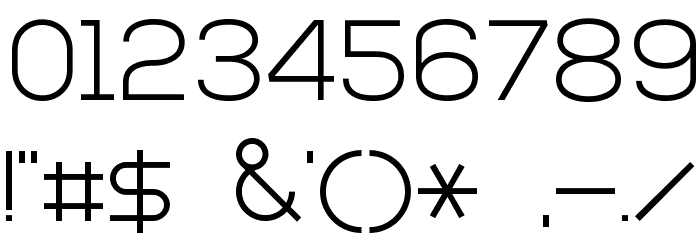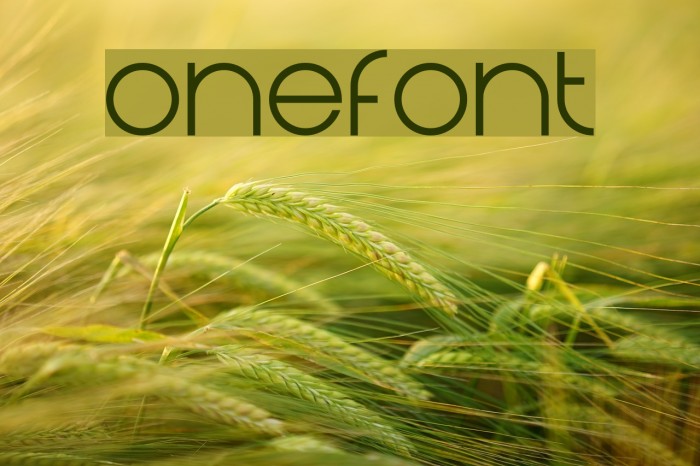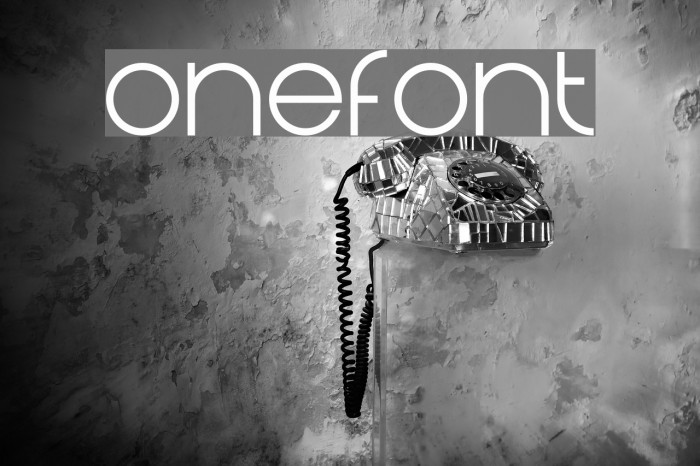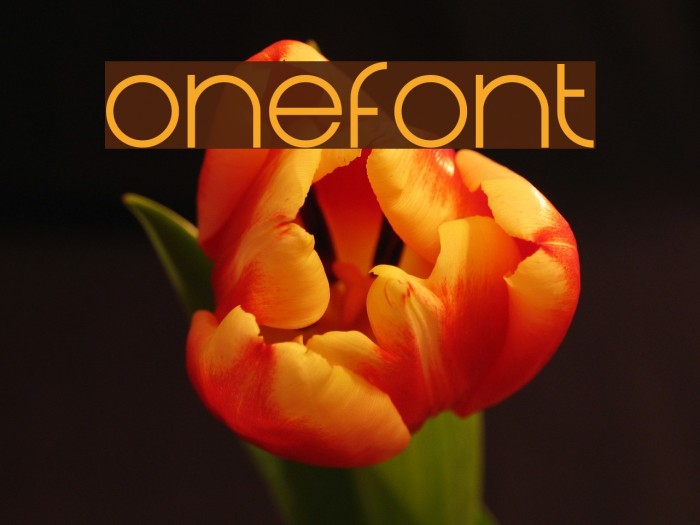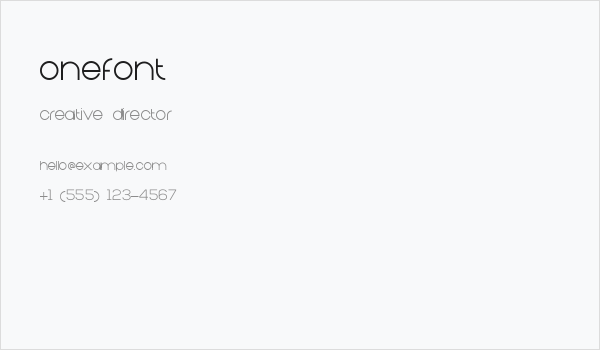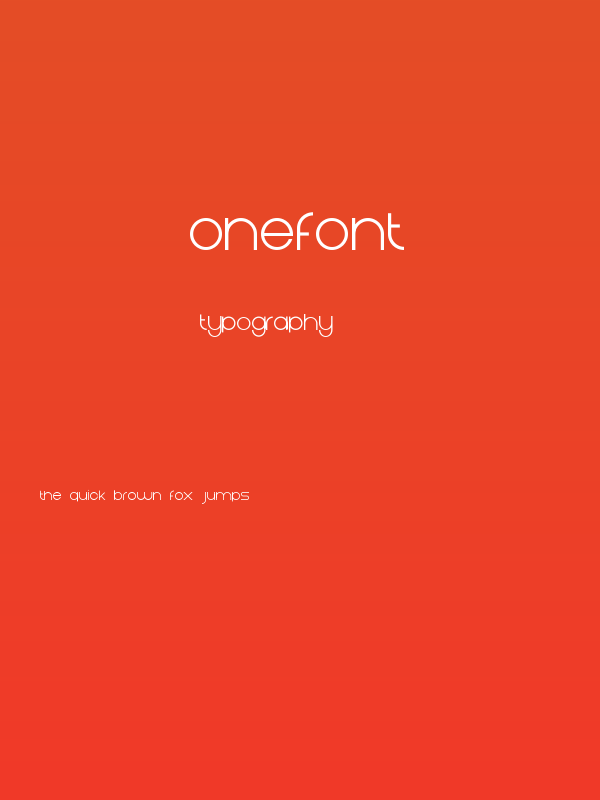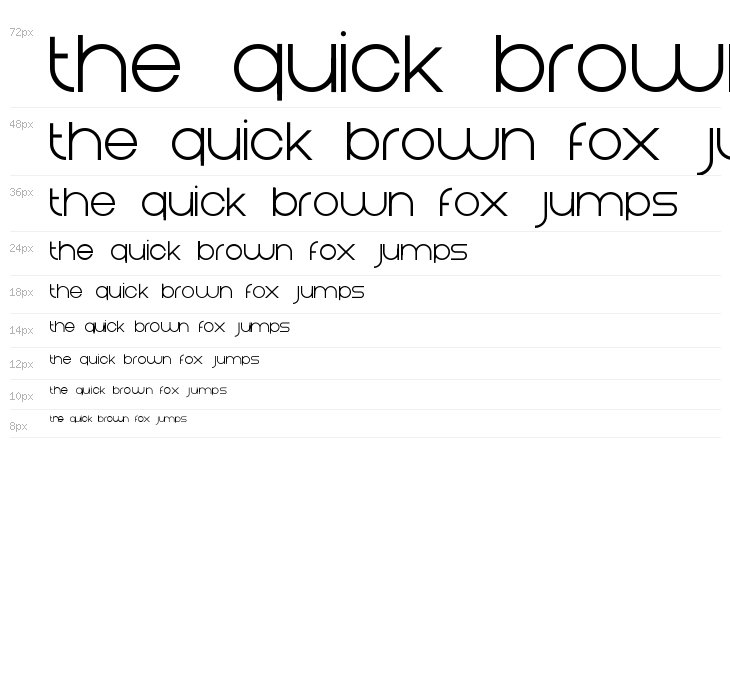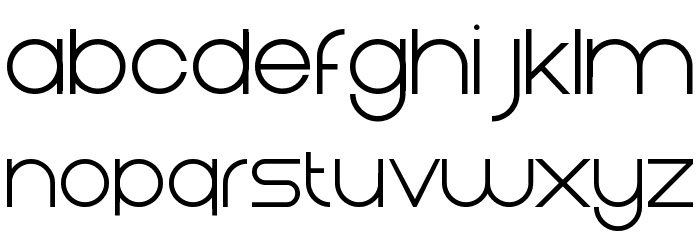
Onefont Font
Onefont Description
This font features a sleek, modern design with clean, geometric lines. The characters are uniformly structured, with a consistent stroke width that gives it a minimalist and contemporary appearance. The rounded edges and open counters enhance its readability, making it suitable for digital interfaces. The numerals and special characters maintain the same geometric style, ensuring a cohesive look across all text elements. Its simplicity and clarity make it versatile for various design applications.
Use CaseHeadlines, Body text, Logos
Proposed ProjectsIdeal for tech branding, digital interfaces, modern advertising, and minimalist design projects.